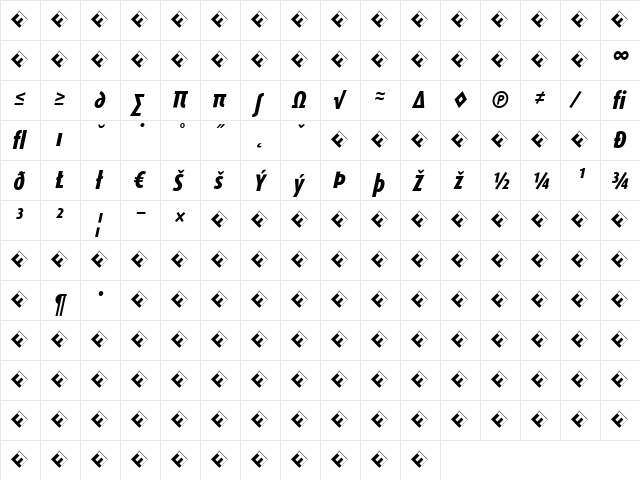
DaxCondensed-ExBoldItalicExp ItalicBold Font Preview
| Foundry | Hans Reichel, published by Fontshop International for the FontFont library |
Design Context for DaxCondensed-ExBoldItalicExp Typeface
DaxCondensed-ExBoldItalicExp takes a measured approach to typography — its balanced proportions and neutral character make it a reliable workhorse for both digital and print work. The dynamic lean of this cut emphasises speed and emphasis in any layout. The heavy weight commands attention and anchors typographic hierarchies. The condensed width makes it efficient for tight spaces without sacrificing legibility.